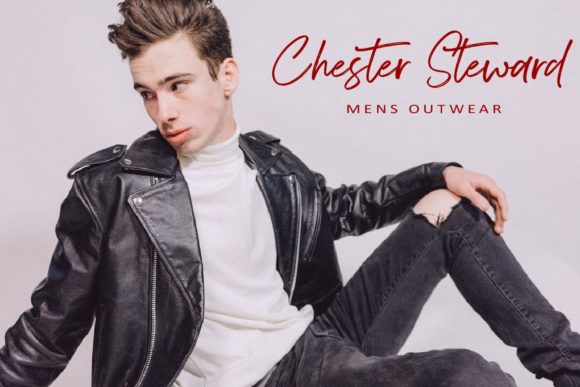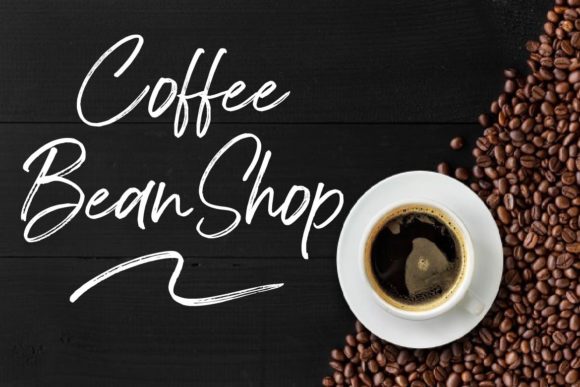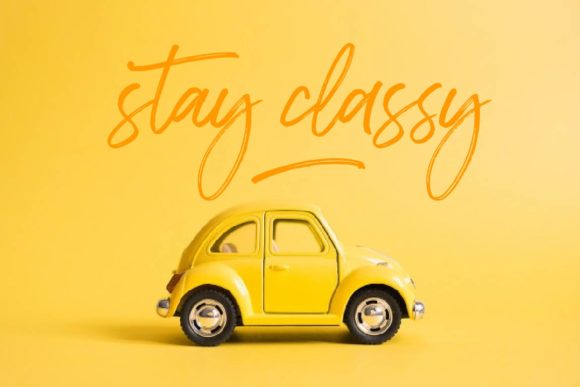
About Bedontes Font
Bedontes is a charming and elegant handwritten font that adds a touch of sophistication and beauty to various design projects. Its versatile style makes it suitable for a wide range of applications, allowing you to create stunning and memorable designs. Here are some creative ideas on how to use Bedontes’ charming and elegant qualities:
1. Wedding Invitations: Design enchanting and romantic wedding invitations that showcase the elegance of Bedontes’ flowing letterforms.
2. Thank You Cards: Create heartfelt and classy thank you cards with a personalized touch using Bedontes’ charming handwriting.
3. Quotes and Greeting Cards: Use Bedontes to design beautiful typographic posters, quote graphics, and greeting cards with an elegant flair.
4. Branding and Logo Design: Incorporate Bedontes into brand logos and identity designs to add a touch of sophistication and uniqueness.
5. Business Cards: Design elegant and memorable business cards that make a lasting impression with Bedontes’ charming lettering.
6. Stationery: Create refined and stylish stationery sets, including notepads and letterheads, with Bedontes’ elegant handwriting.
7. Social Media Graphics: Use Bedontes in social media posts and graphics to add a touch of elegance and personalization.
8. Product Packaging: Enhance product packaging with Bedontes’ delightful handwriting to create a sense of authenticity and appeal.
9. Book Covers: Use Bedontes’ elegant style for book covers to add a touch of sophistication and beauty to literary works.
10. Menu Design: Design chic and visually appealing menus for restaurants or cafes using Bedontes’ charming letterforms.
11. Magazine Titles: Use Bedontes for magazine titles and headlines to create captivating and eye-catching designs.
12. Invitations and Announcements: Create charming and inviting invitations and announcements for various events.
13. Website Headers: Customize website headers and banners with Bedontes’ elegant lettering for a personalized touch.
14. Event Signage: Use Bedontes in event signage and posters to add an elegant and sophisticated element.
15. Gift Tags: Design lovely and charming gift tags for special occasions with Bedontes’ delightful letterforms.
16. Calligraphy Art: Create stunning calligraphy art pieces with Bedontes’ graceful and elegant style.
17. Packaging Inserts: Use Bedontes in packaging inserts to add a personal and artistic touch to product shipments.
18. Bridal Shower Decorations: Incorporate Bedontes into bridal shower decorations for an elegant and sophisticated ambiance.
19. Fine Art Prints: Design fine art prints with inspiring quotes or phrases using Bedontes’ captivating lettering.
20. Personalized Gifts: Create personalized gifts, such as custom prints or stationery, with Bedontes’ charming and elegant handwriting.
With Bedontes’ charm and elegance, you can elevate your design projects and create captivating and memorable pieces. Embrace the versatility of this charming handwritten font and let your creativity shine as you explore the endless possibilities it offers for your designs!